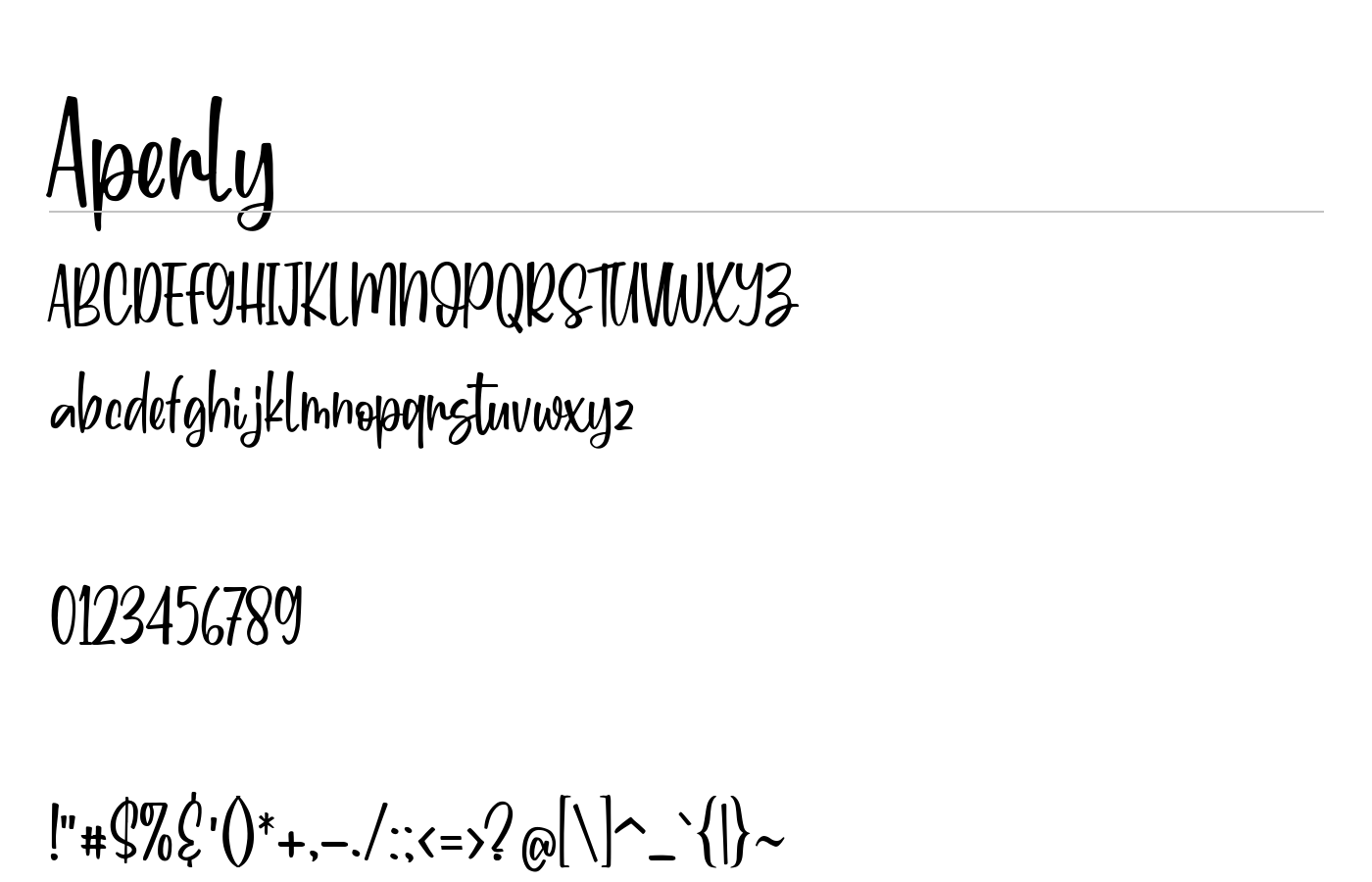
Aperly is a tall, slender handwritten font with a playful and casual personality. Its narrow letterforms and smooth, uneven strokes create an approachable, friendly feeling, making it perfect for branding, invitations, or creative projects that seek a personal touch. This font’s distinctive style works well for headlines, logos, and packaging where charm and uniqueness are key.
Aperly Font
About Aperly Font